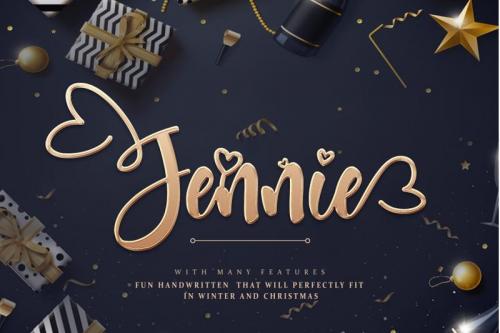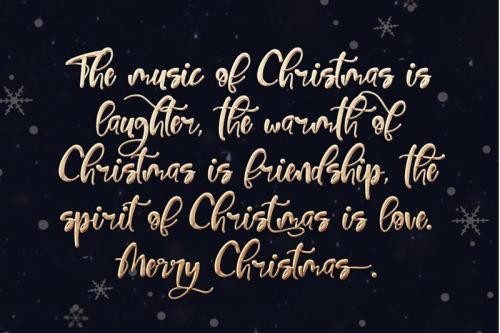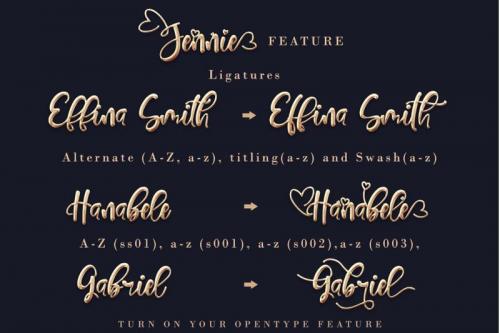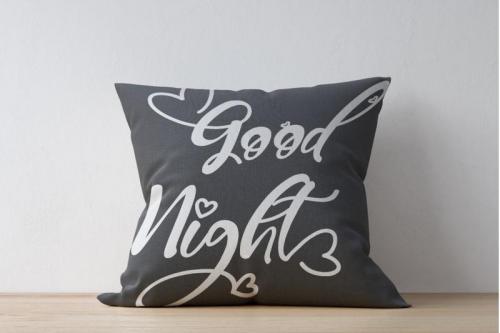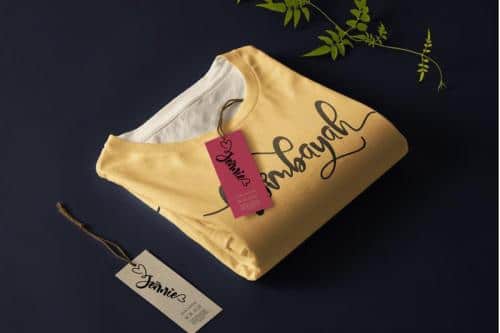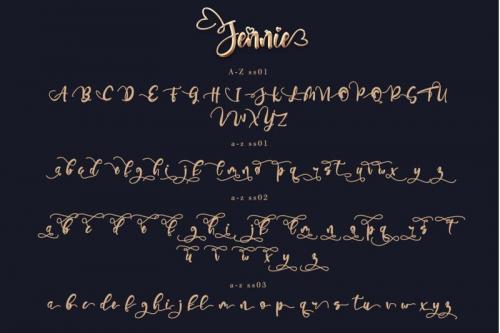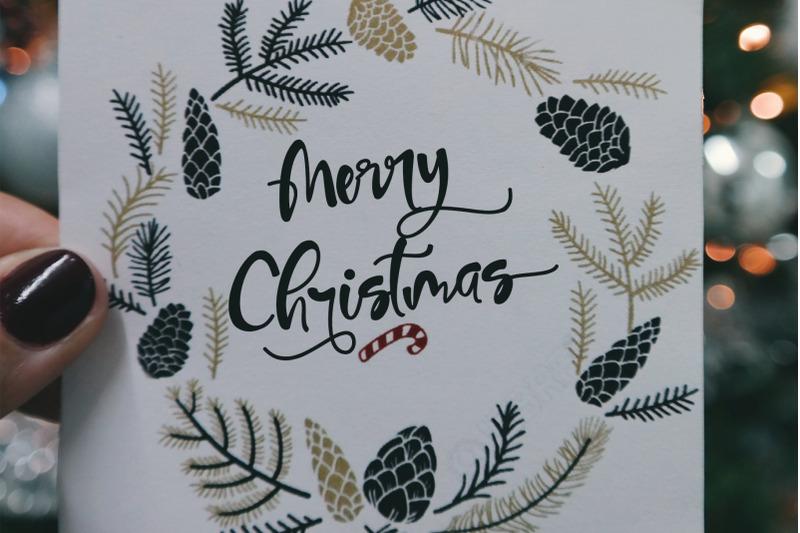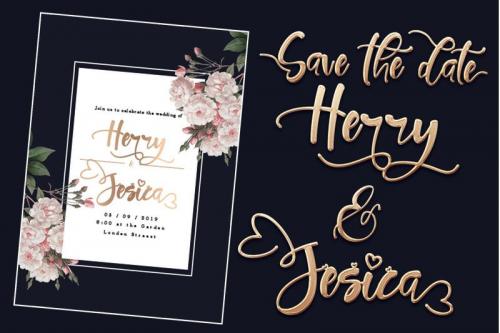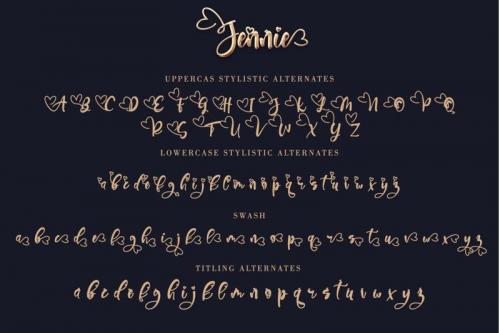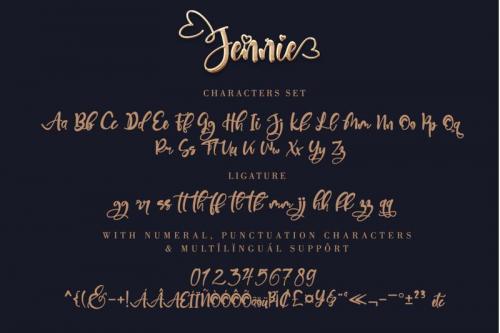
Jennie is a fun handwritten font with many features that will perfectly fit in winter and Christmas projects. It can be used for various purposes such as: t-shirts, posters, cards, Christmas and holiday invitations, wedding invites and stationery, logos, etc.
- Designer: thomasaradea